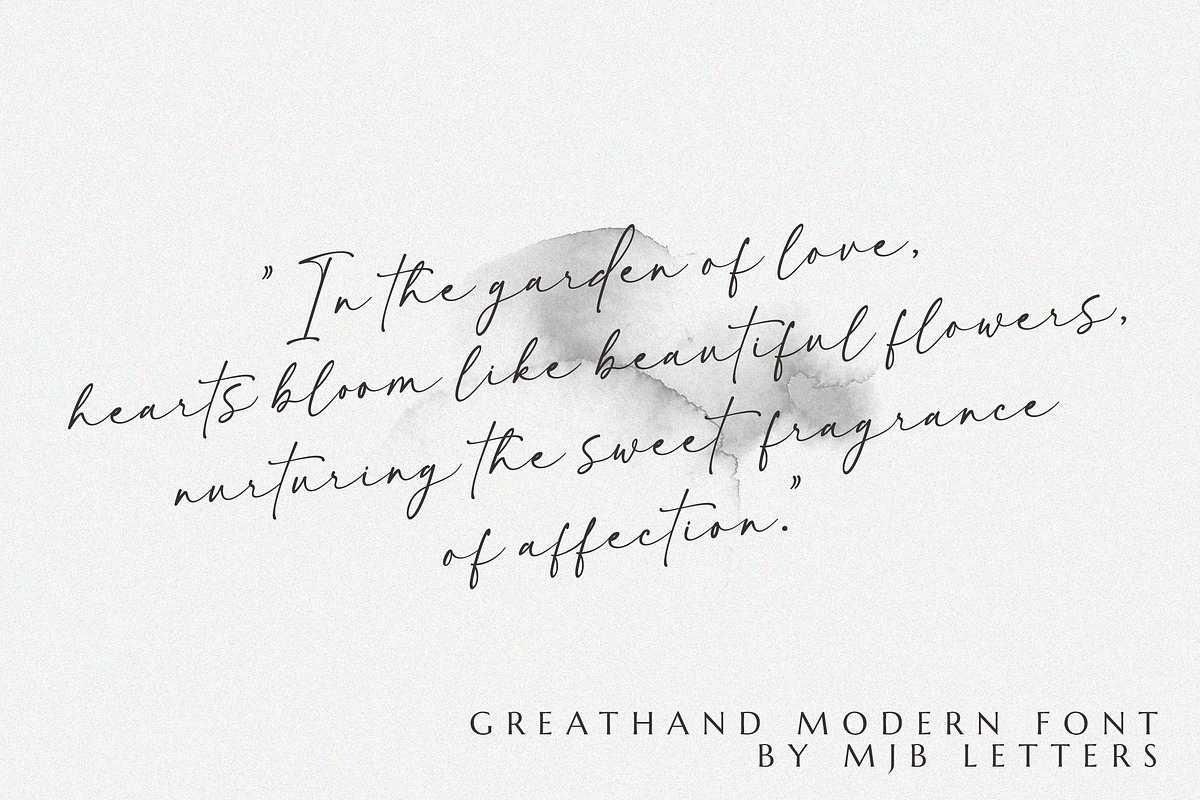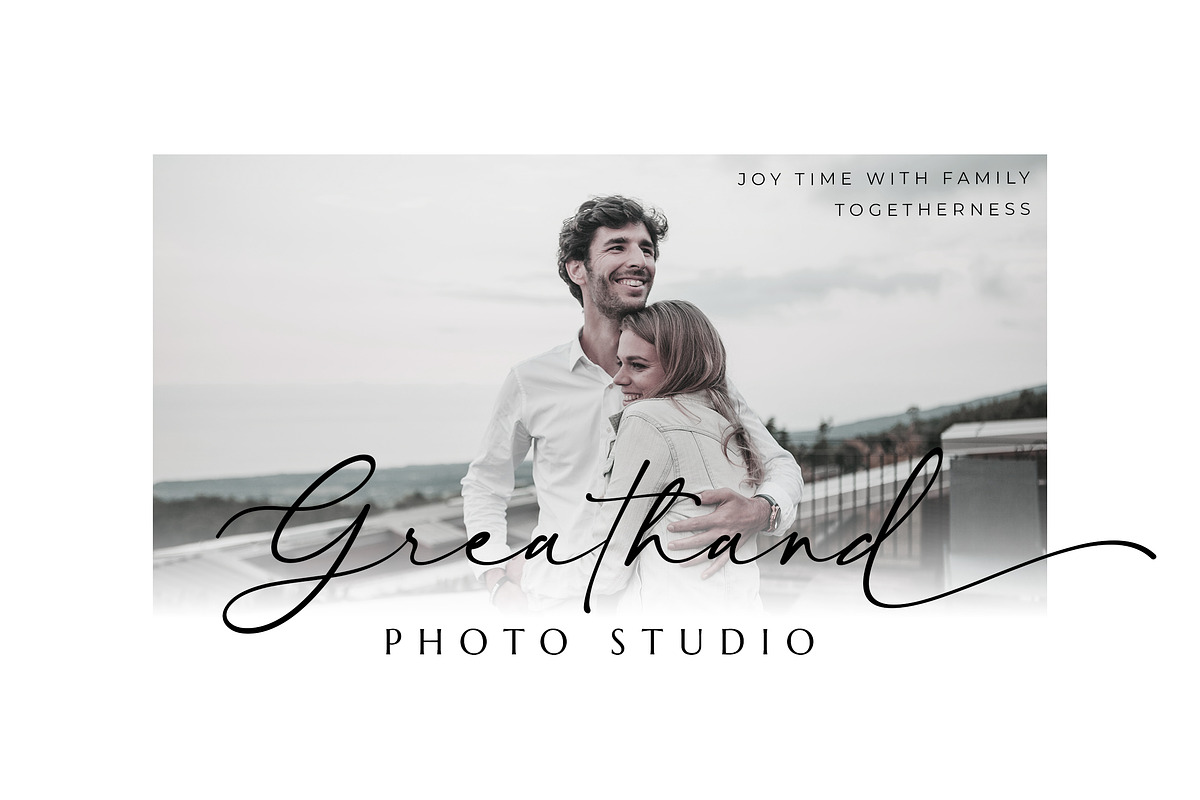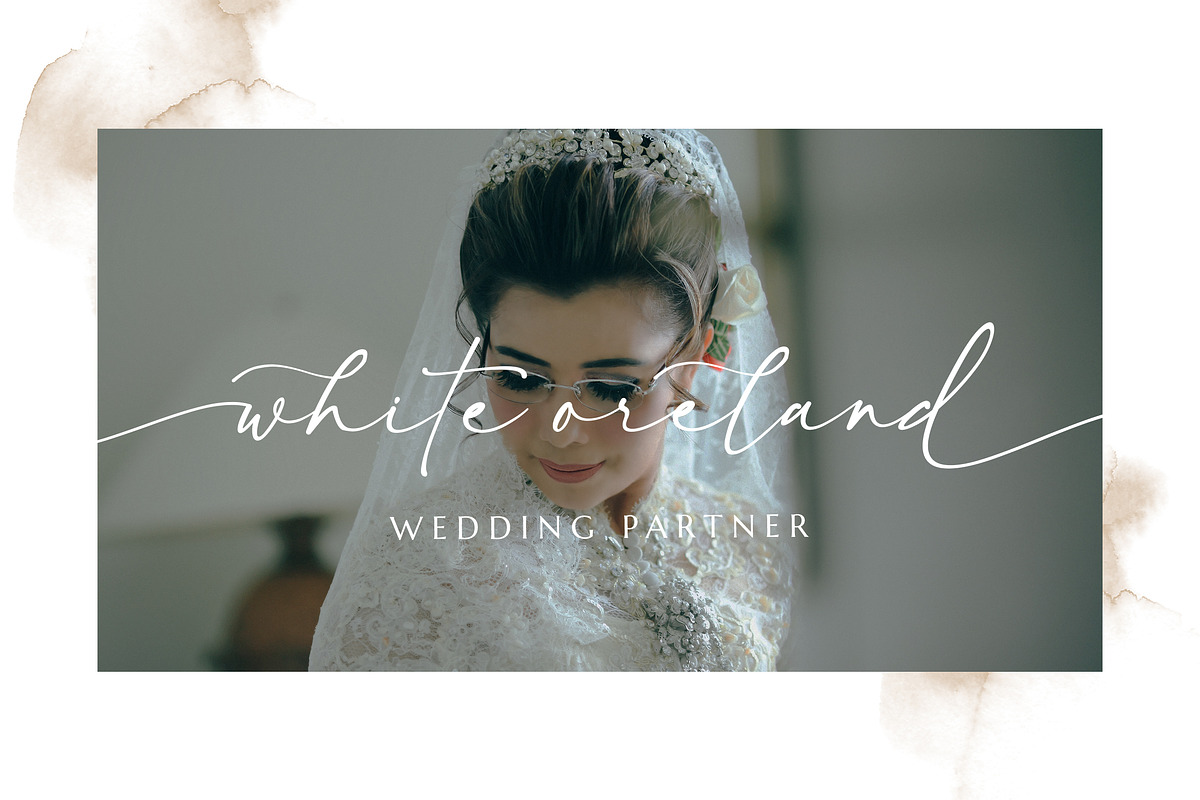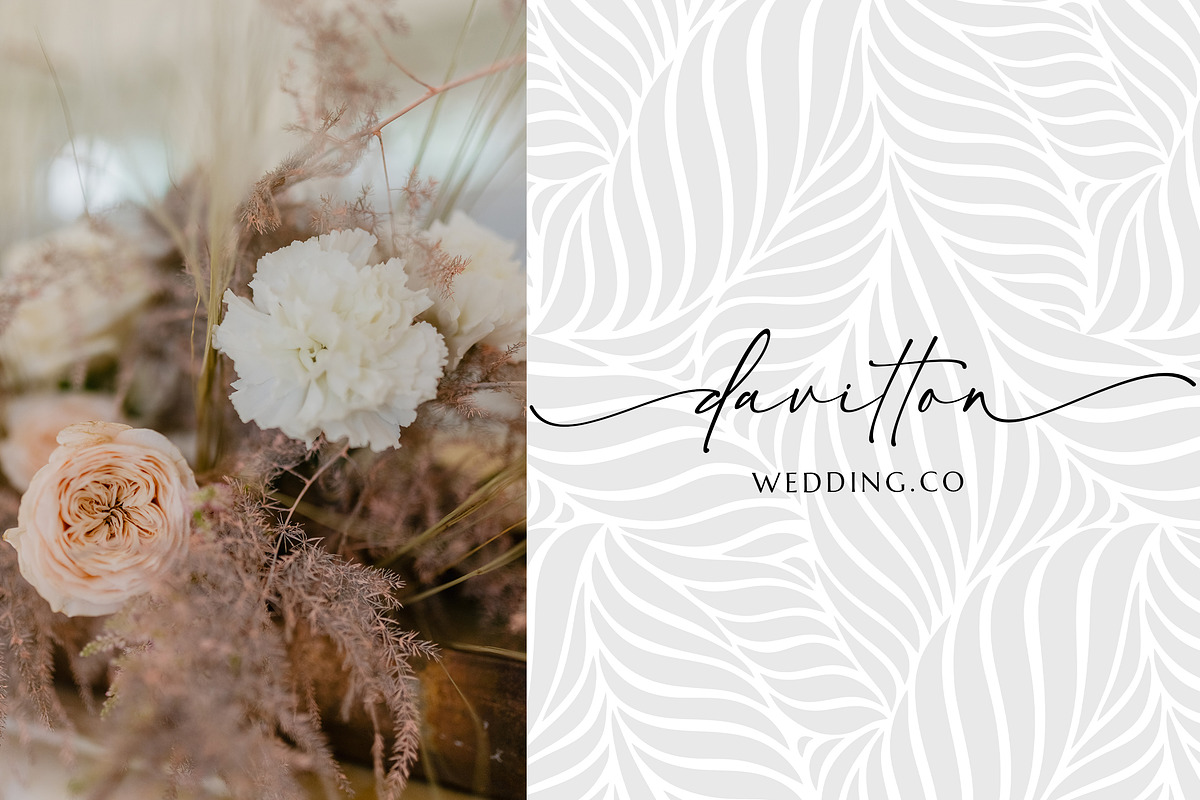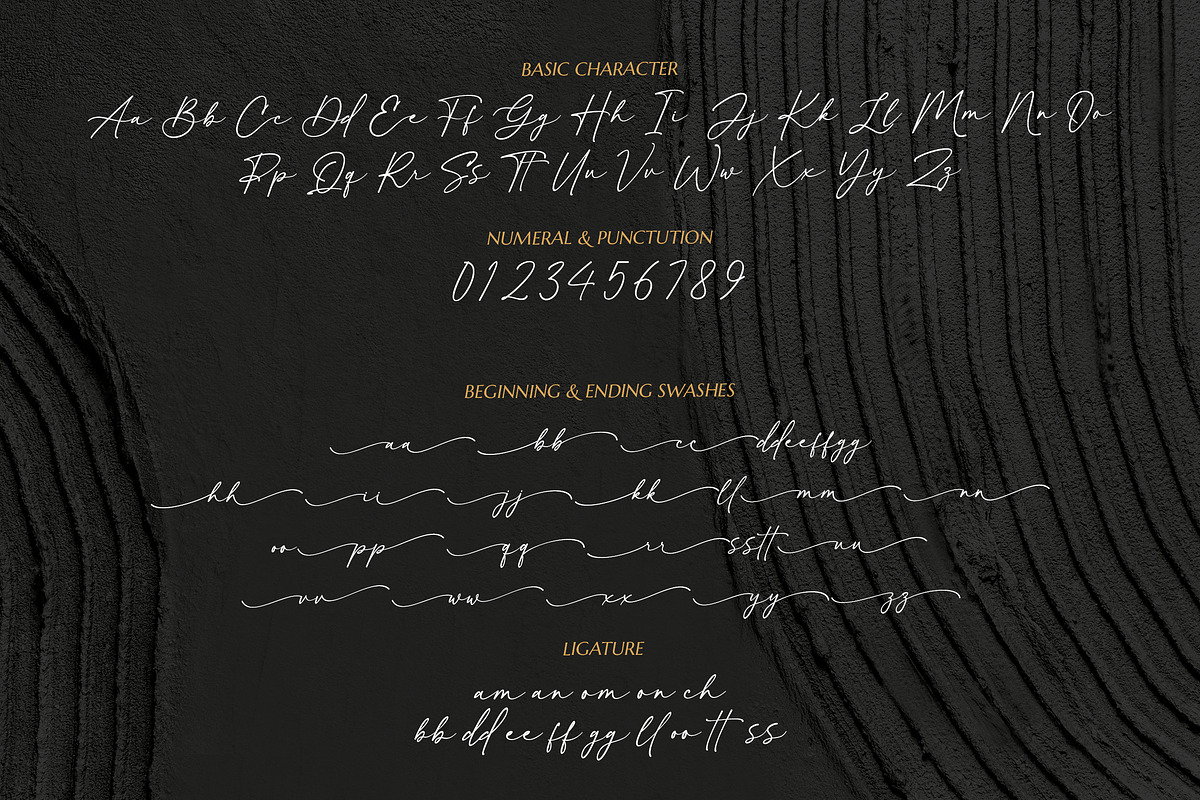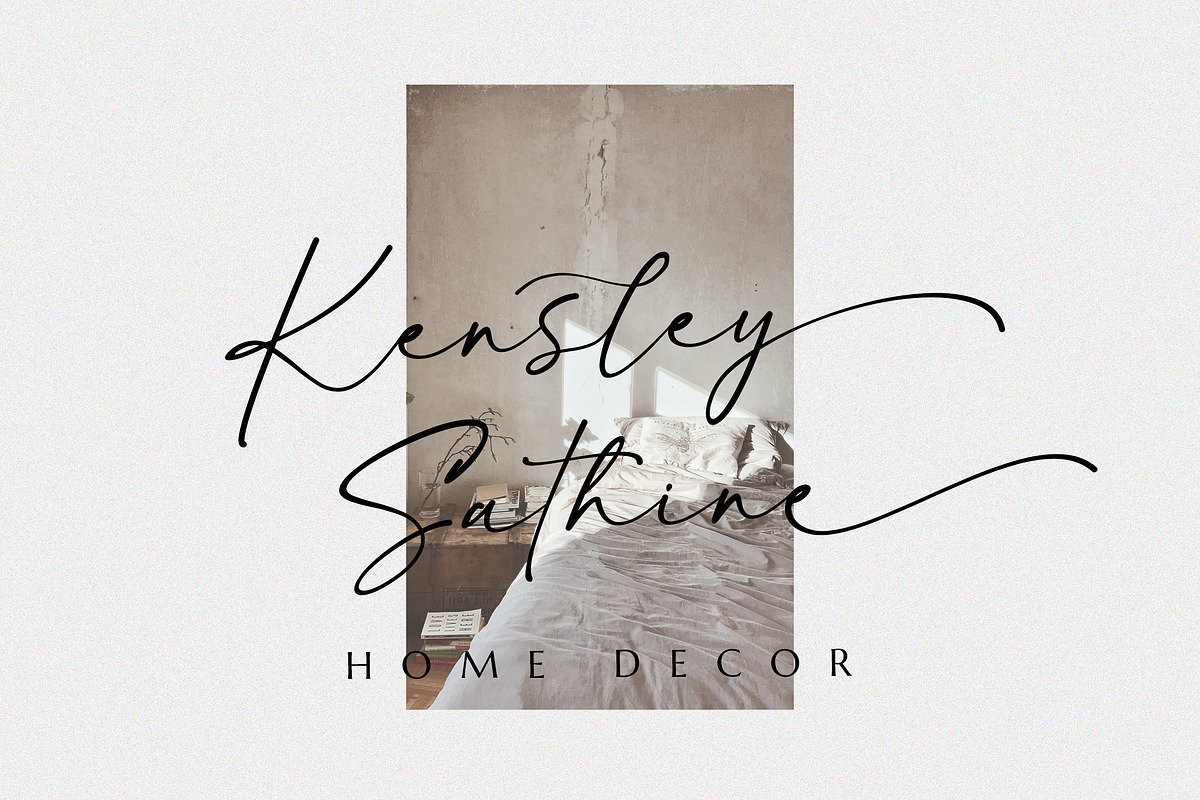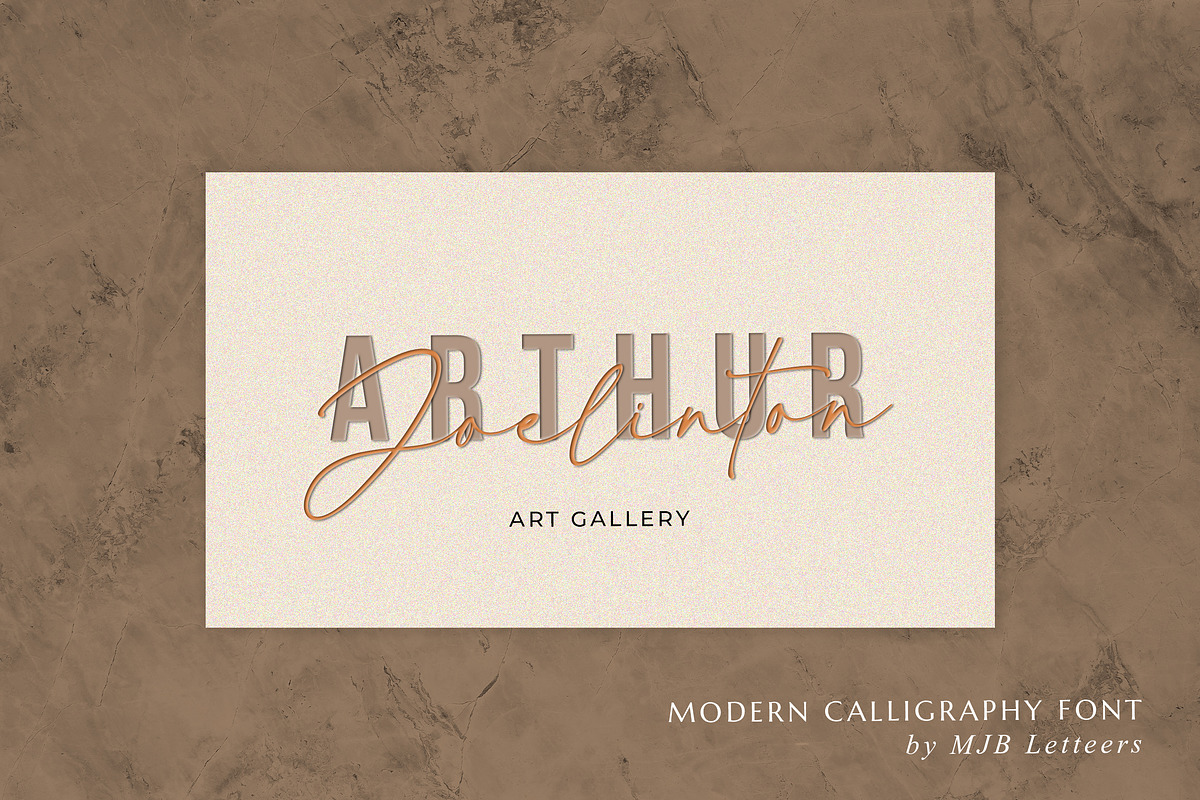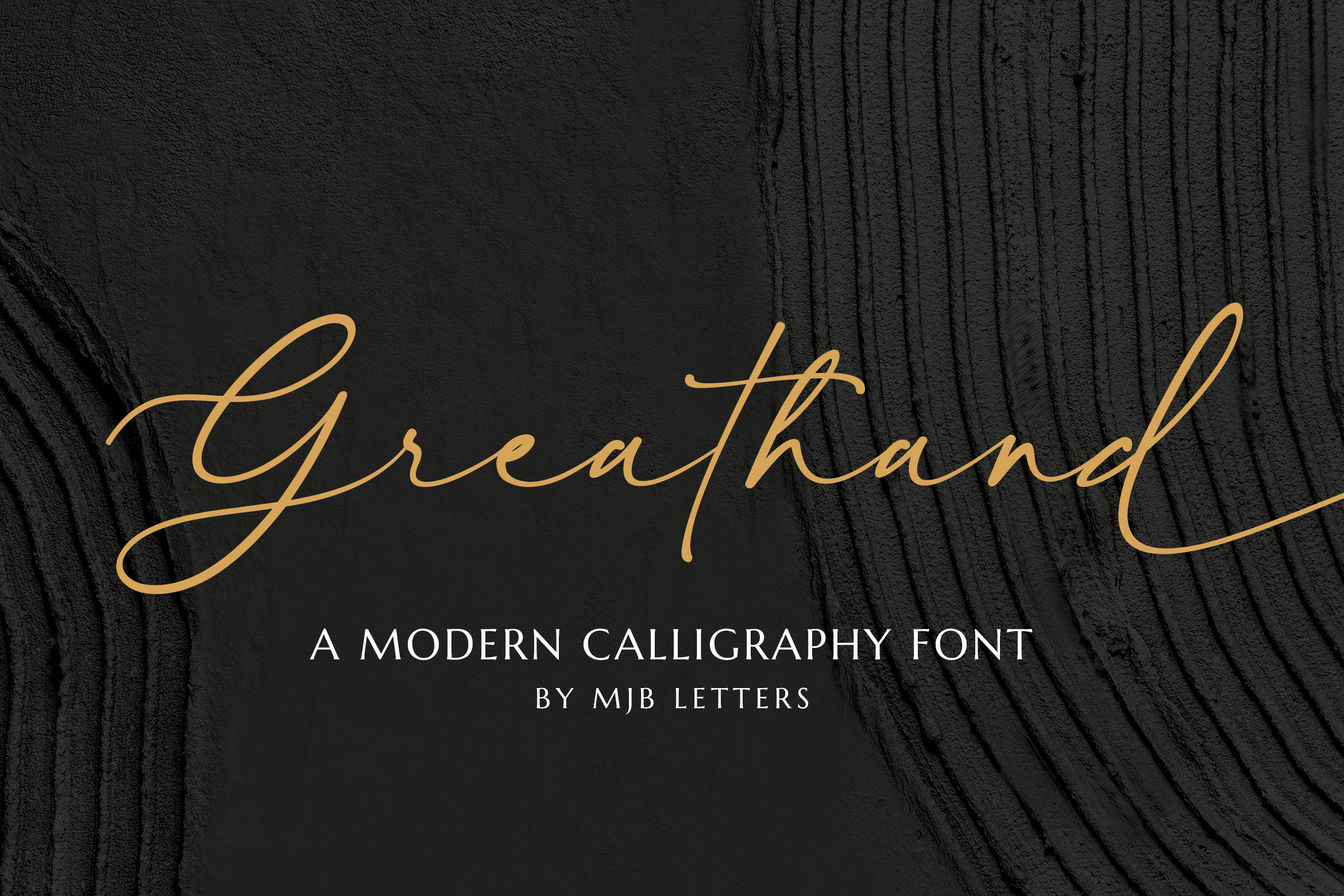
Greathand Font
"Greathand" is a modern calligraphy font that combines elegance and versatility, making it a popular choice for various design applications. This font stands out for its unique features and capabilities, making it a valuable asset for designers and creatives alike.
Greathand is a versatile font suitable for a wide range of design projects. Its modern calligraphy style adds a touch of sophistication and personality to any text it's applied to. This font is commonly used for branding, invitations, typography art, the font is available in various formats, including OTF, TTF, and WOFF, making it compatible with web design projects.
Swash Initials and Endings: Greathand offers swash glyphs at the beginning and end of words, allowing designers to add decorative flourishes for a more artistic and personalized touch.
Ligatures: Ligatures are special character combinations that enhance the overall flow and aesthetics of the text. Greathand includes ligatures to ensure seamless and visually appealing connections between characters.
Alternates: This font provides alternate characters for certain letters, giving designers the flexibility to experiment with different looks and styles.
Multilingual Support: Greathand is designed to support multiple languages, making it accessible and adaptable for a global audience.
In summary, Greathand is a modern calligraphy font that combines elegance with versatility. Its features such as swash initials and endings, ligatures, alternates, and multilingual support make it a valuable resource for designers looking to create visually stunning and personalized designs across different mediums. With its various format options, Greathand is a must-have font for anyone seeking to add a touch of sophistication to their projects.